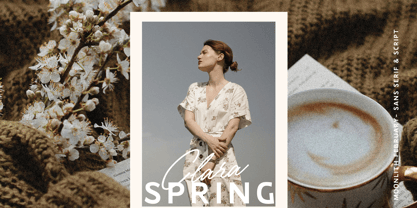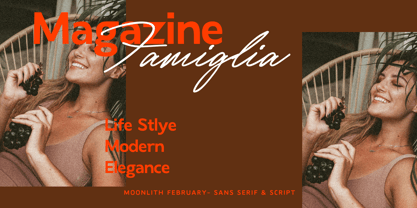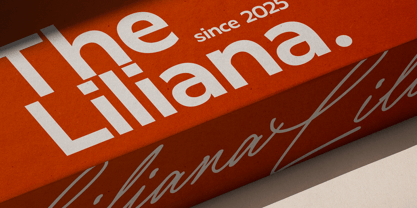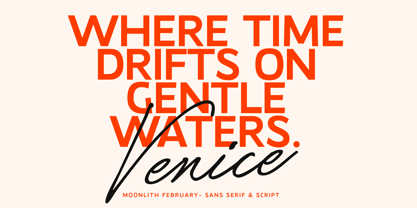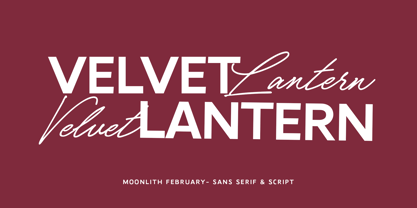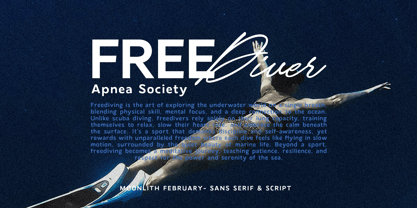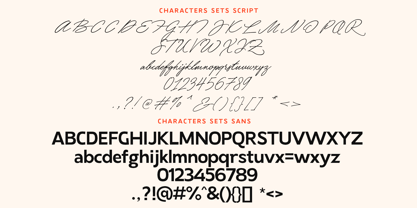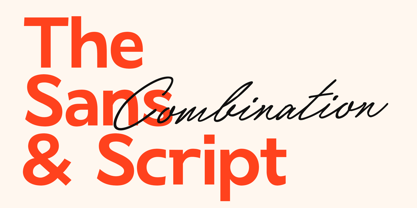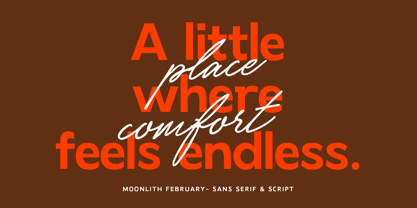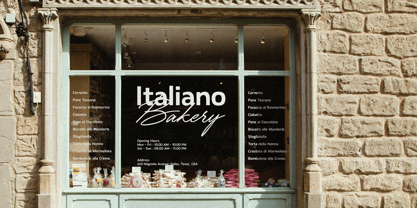
Moonlith February
The Moonlith February Font Family was designed by Laire Banyu, Dyaharum Pungki Revitasari and published by Jolicia Type. Moonlith February contains 2 styles and family package options. More about this family
Moonlith February is a perfect harmony between the clean precision of a modern sans serif and the graceful flow of a handwritten script. Designed to blend professionalism with elegance, this duo offers a versatile style that’s both timeless and contemporary.
The sans serif delivers a sleek, minimalist look ideal for headlines, branding, and professional layouts, while the handwritten script adds a warm, personal touch with its natural and flowing strokes. Together, they create a refined balance—perfect for luxury branding, wedding invitations, boutique logos, social media designs, and product packaging that needs a sophisticated yet approachable feel.
With Moonlith February, every project becomes a beautiful fusion of clarity and charm, making it a must-have font duo for designers seeking elegance and versatility in one package.